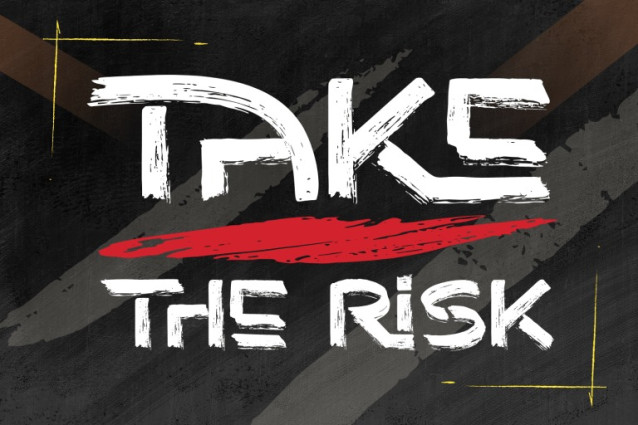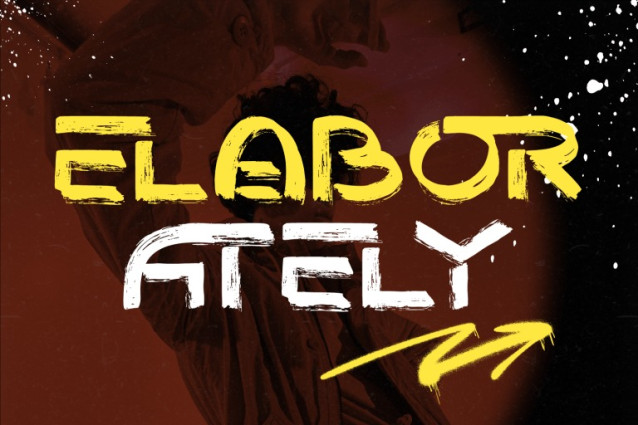
Across Changes Font
ACROSS CHANGES – BRUSH FONT is a bold brush display font that captures the raw energy of hand-painted strokes. Each character is crafted with rough edges, paint-like textures, and expressive movement, giving the typeface a dynamic and rebellious personality. Perfect for poster design, streetwear branding, music covers, sports graphics, and editorial headlines, this font brings a sense of authenticity and boldness that stands out in any creative project.
🔤Font Features:
Uppercase & Lowercase Letters
~100 Special Ligatures
Accented Characters for multilingual support
🔤About 100 ligatures combined with Stylistic Alternates Font:
AC AD AL AN AR AS AT AU AV BE CA CE CH CO CT DE DI EA EC ED EE EL EM EN EP ER ES ET FE FO FR GE HA HE HI HO IE IC IL IN IO IR IS IT JU KE LA LE LI LL LO LY MA ME MI NC ND NE NG NO NT NS OC OF OM ON OO OP OR OT OU OW PA PR RA RD RE RI RO RS RT SE SH SI SO SS ST TA TE TH TI TO TR TT UM UN UR VE WI WO